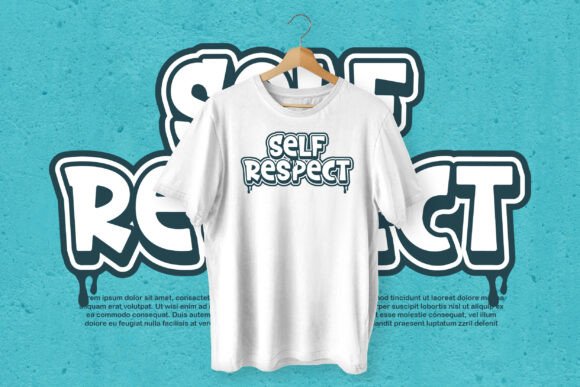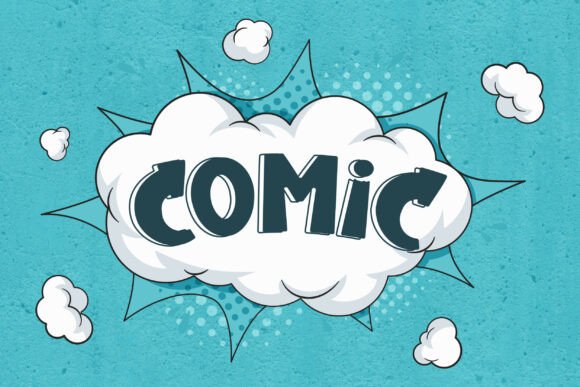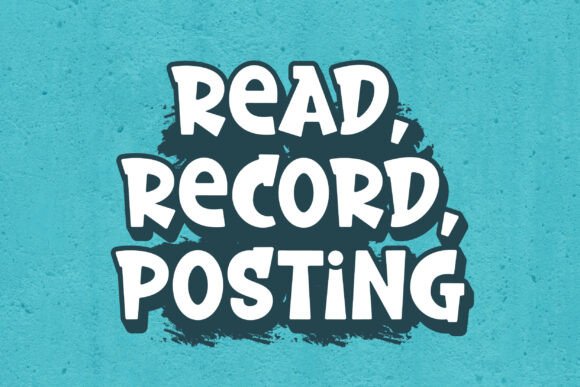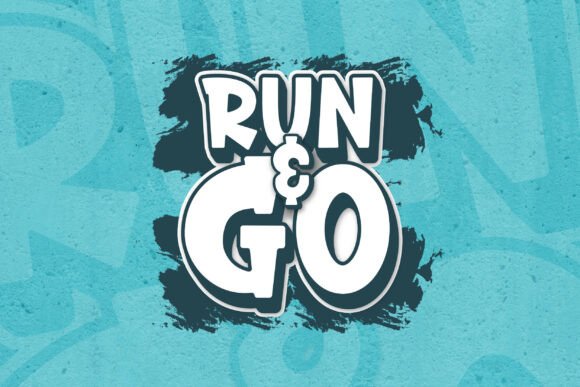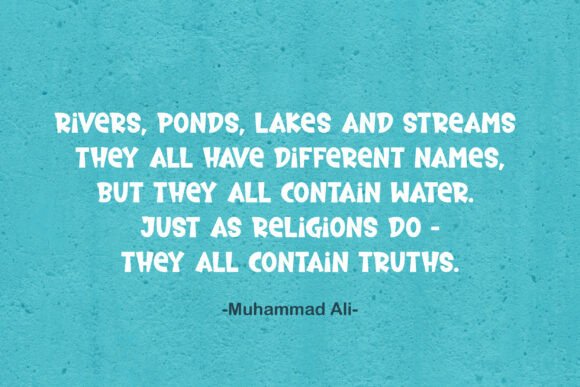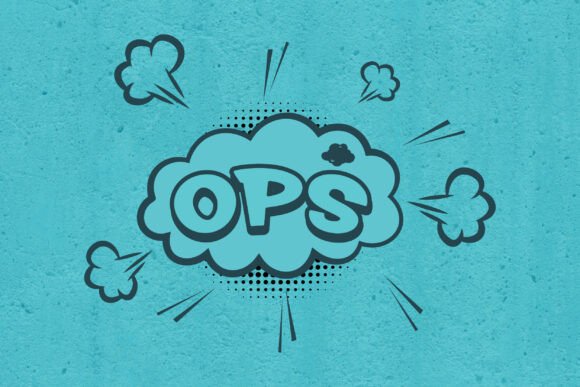
Introduction to Graft Style Font
Introducing Graft Style – a vibrant Cartoon Graffiti font that injects a splash of creative energy into your professional branding endeavors.
Ideal for crafting unique logos, comic book styling, impactful watermarks, engaging posters, and sophisticated branding Whether you’re sprucing up promotions or giving product packaging a lively twist, Graft Style has you covered.
Key Features of Graft Style Font
Why Choose Graft Style Font?